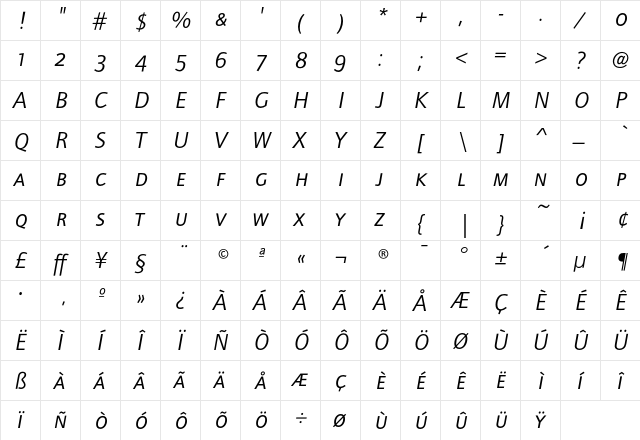
FoundryJournalSC-BookItalic Regular
FoundryJournalSC-BookItalic is a composed and adaptable typeface that performs quietly and consistently across a wide range of design contexts. Its italic angle brings a sense of urgency and motion to the letterforms.